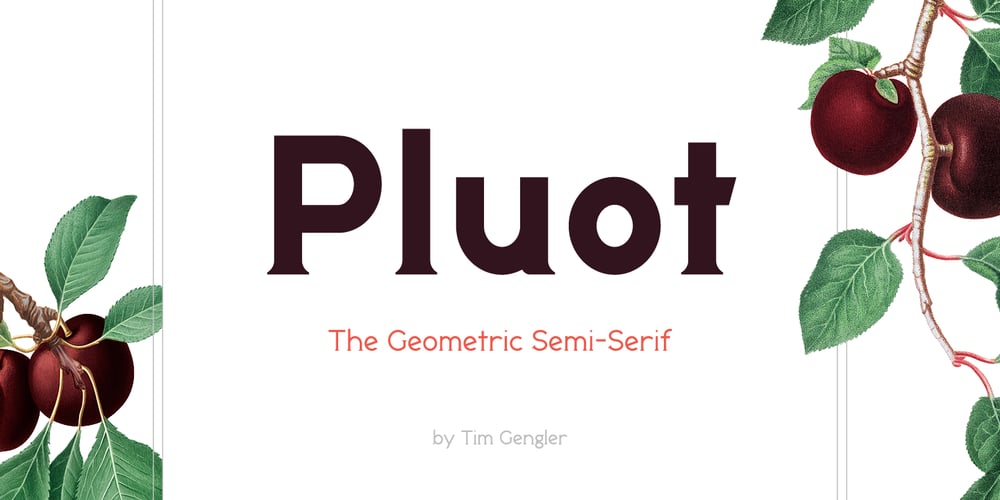
Pluot Font Family was designed by Tim Gengler and published by Bunny Dojo. Pluot contains 3 styles and family package options. Designed for an age of increased nuance and inclusivity, Pluot defies conventional classification. With an upper half inspired by sans-serif tendencies and a serif-influenced lower half, Pluot is a geometric semi-serif (or semi-sans). It is, at once, fresh and exciting, while also completely at home in any setting. Pluot is your elegant workhorse for a new era.